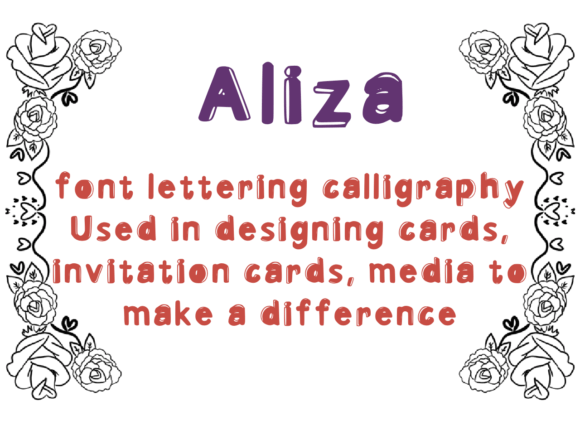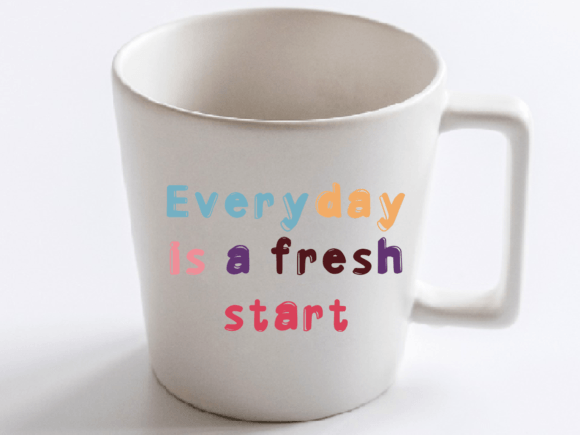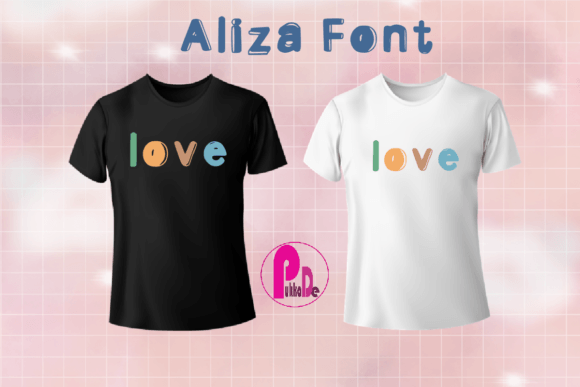
Introducing Aliza Font: The Bold and Quirky Display Typeface You Need!
Are you tired of using the same old fonts in your designs? Look no further! Aliza Font is here to shake things up with its bold and quirky personality. This fun display typeface is perfect for adding a touch of whimsy to your designs, making it ideal for a wide range of creative projects. In this article, we’ll dive into the world of Aliza Font and explore its features, uses, and benefits.
What is Aliza Font?
Aliza Font is a bold and quirky display font designed to bring lots of fun to your designs. Its unique and playful style makes it perfect for creating eye-catching headlines, titles, and captions. The font’s quirky personality is sure to capture the attention of your audience and leave a lasting impression.
Features of Aliza Font
So, what makes Aliza Font so special? Here are some of its key features:
- Bold and Quirky Style: Aliza Font boasts a bold and quirky style that’s sure to make your designs stand out.
- Display Font: This font is specifically designed for display purposes, making it perfect for headlines, titles, and captions.
- Fun and Playful: Aliza Font is the perfect choice for designers who want to add a touch of whimsy to their designs.
- High-Quality Design: The font is designed with high-quality craftsmanship, ensuring that it looks great in any design.
Uses of Aliza Font
Aliza Font is a versatile typeface that can be used in a wide range of creative projects, including:
- Lovely Storybooks: Create engaging and fun storybooks for children with Aliza Font.
- Magazine Covers: Use Aliza Font to create eye-catching magazine covers that grab attention.
- Posters: Design bold and quirky posters with Aliza Font that showcase your message.
- Product Packaging: Add a touch of whimsy to your product packaging with Aliza Font.
- Branding Designs: Use Aliza Font to create unique and memorable branding designs.
- Logos: Create fun and playful logos with Aliza Font that represent your brand.
Benefits of Using Aliza Font
So, why should you use Aliza Font in your designs? Here are some benefits:
- Adds Fun and Personality: Aliza Font adds a touch of whimsy and personality to your designs.
- Grabs Attention: The font’s bold and quirky style grabs attention and leaves a lasting impression.
- Versatile: Aliza Font can be used in a wide range of creative projects.
- High-Quality Design: The font is designed with high-quality craftsmanship, ensuring that it looks great in any design.
Tips for Using Aliza Font
Here are some tips for using Aliza Font in your designs:
- Use it for Headlines and Titles: Aliza Font is perfect for headlines and titles, so use it to grab attention.
- Experiment with Colors: Try out different colors to add an extra touch of personality to your designs.
- Pair it with Other Fonts: Experiment with pairing Aliza Font with other fonts to create a unique look.
In conclusion, Aliza Font is a bold and quirky display typeface that’s perfect for adding a touch of fun to your designs. With its unique and playful style, it’s ideal for a wide range of creative projects, from storybooks to branding designs. So, why not give Aliza Font a try and see how it can elevate your designs?